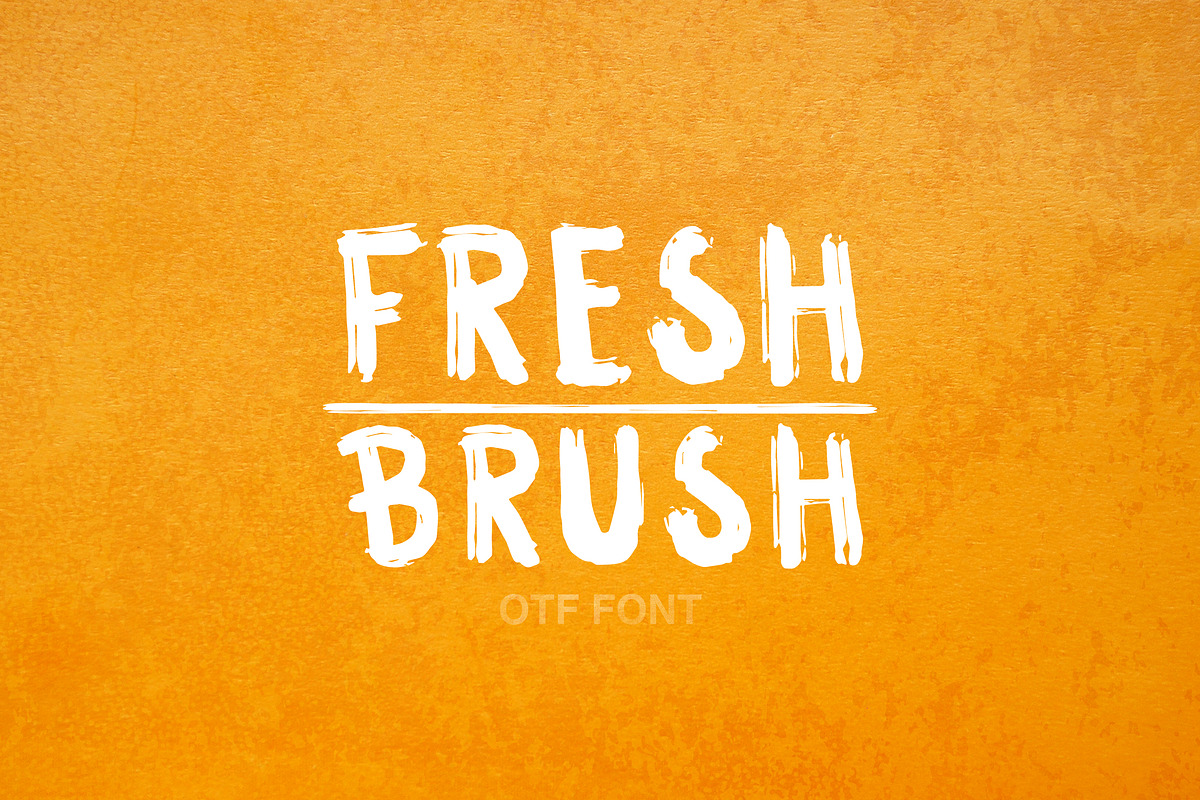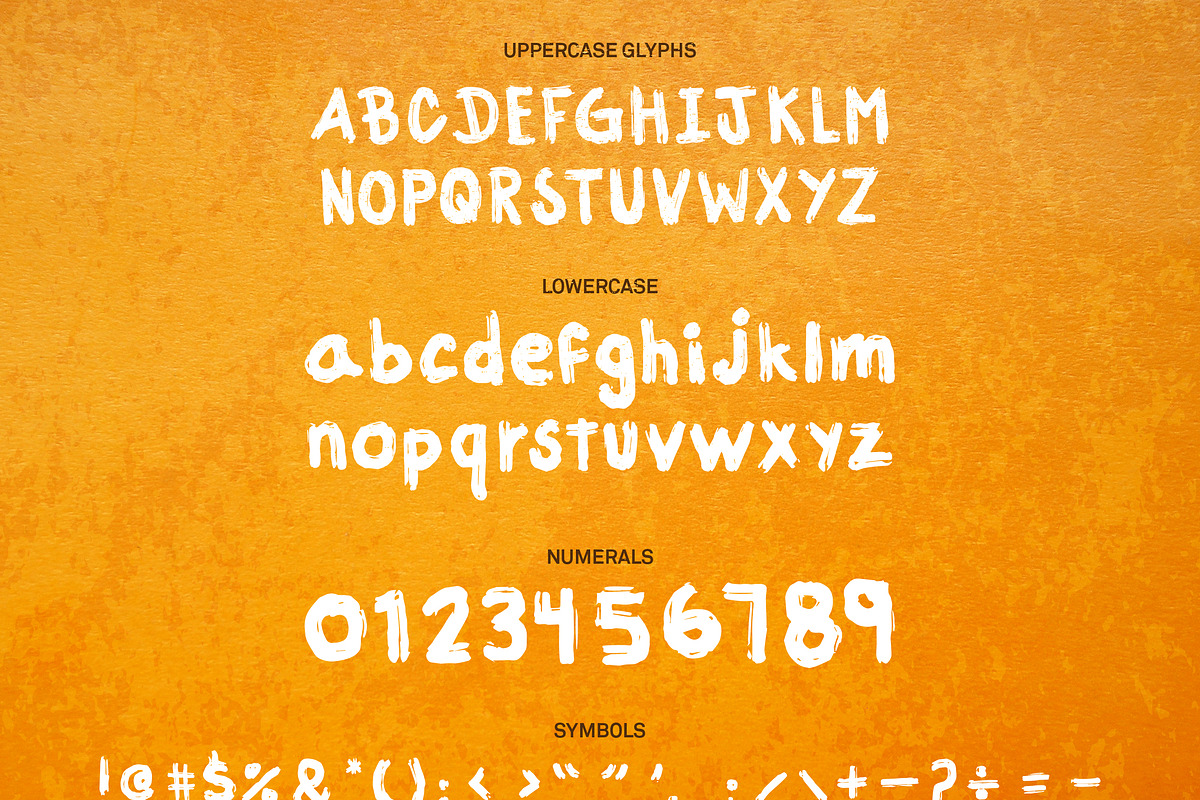
Fresh Brush Font
Fresh Brush is a handmade font. Inspired by sumi ink brush strokes.
Fresh Brush Font by diazha fits naturally into Branding, posters, packaging, typography.